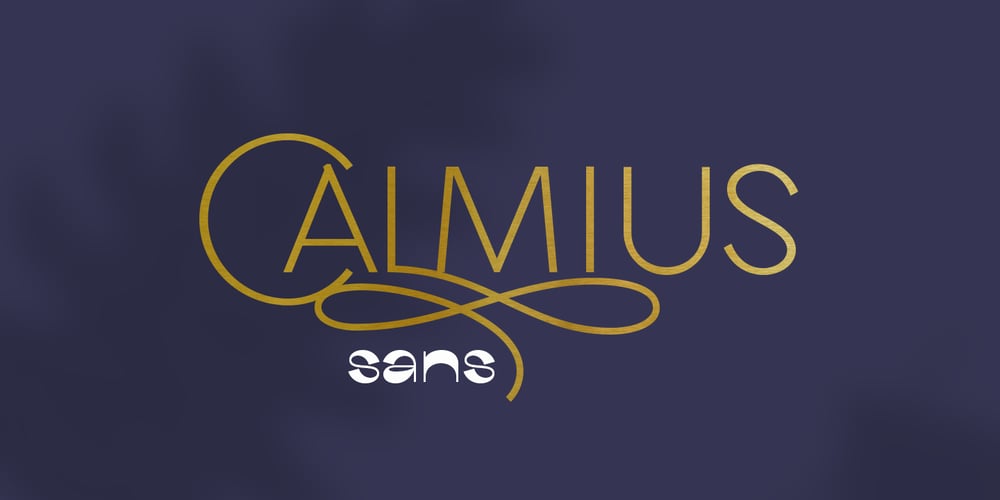
Calmius Sans Font Family was designed by Andriy Dykun and published by NREY. Calmius Sans contains 21 styles and family package options. Calmius is a sans-serif font family that represents perfectly modern and vintage aesthetics. The font includes small caps letters, stylistic alternates, old-style figures and beautiful ligatures.This family is perfect for wedding elegant invitation cards, beauty and fashion package design, very suitable for books design, magazines typography, packaging, branding and more other creative project.It has support for many languages, including: Afrikaans, Basque, Belarusian, Bosnian, Catalan, Croatian, Czech, Danish, Dutch, English, Estonian, Faroese, Filipino, Finnish, French, Galician, German, Icelandic, Indonesian, Irish, Italian, Latvian, Lithuanian, Macedonian, Malay, Norwegian Bokmål, Portuguese, Romanian, Russian, Serbian, Slovak, Slovenian, Spanish, Swahili, Swedish, Turkish, Ukrainian, ZuluTo enable the OpenType Stylistic alternates, you need a program that supports OpenType features such as Adobe Illustrator, Indesign, Photoshop & CorelDraw X6-X7. More information about how to access alternate glyphs, you can see it on this link (https://goo.gl/R1n7L8)Thank you and have a great day!